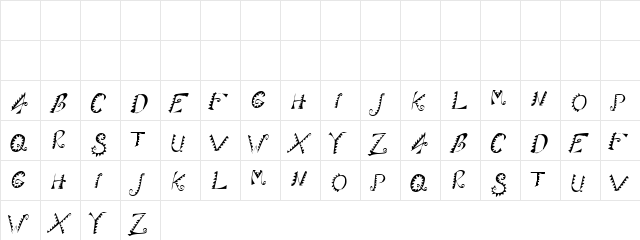
Seizd Kalx Regular
Design Context for Seizd Kalx Typeface
Seizd Kalx is a composed and adaptable typeface that performs quietly and consistently across a wide range of design contexts.